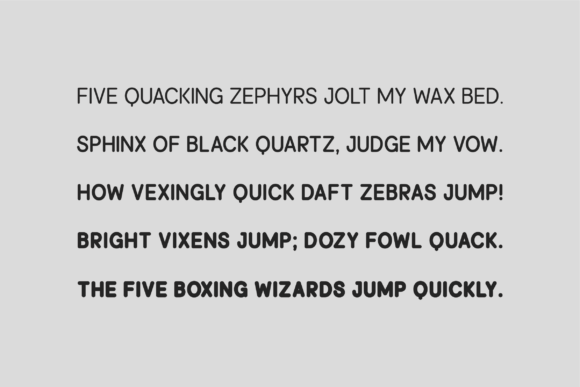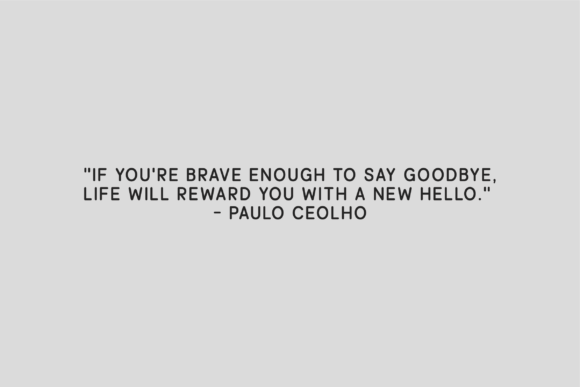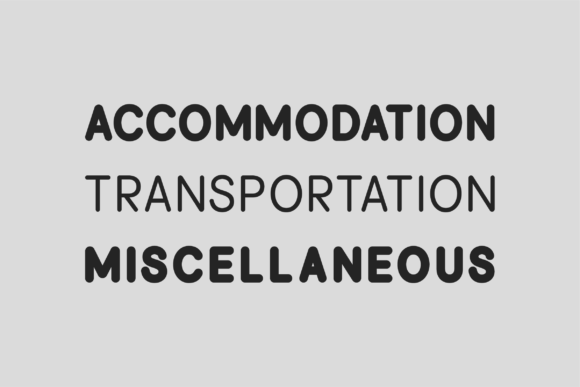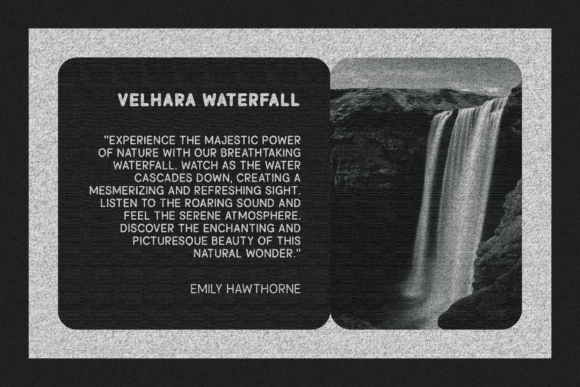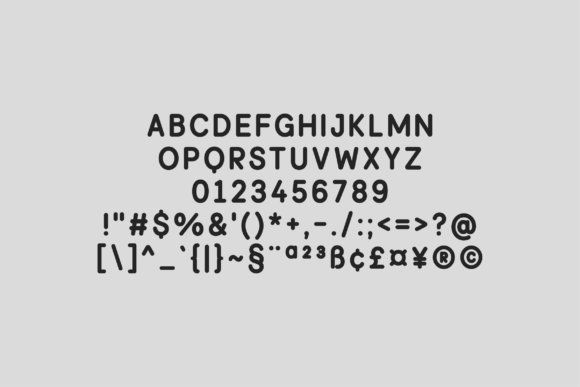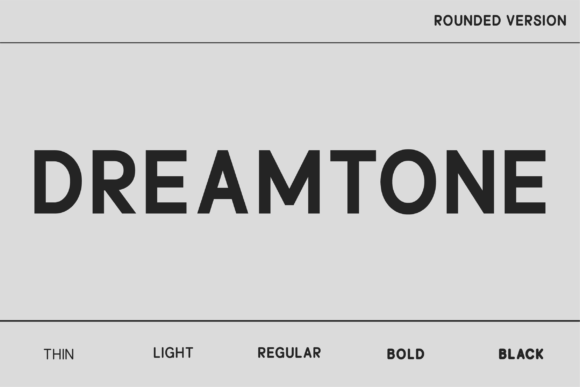
Dreamtone Rounded: The Ultimate Sans Serif Font for Timeless Designs
In the world of typography, a well-crafted font can make all the difference in elevating a design from ordinary to extraordinary. Introducing Dreamtone Rounded, an exquisite sans serif font that is poised to revolutionize the way you approach your design projects. With its perfect blend of sophistication and simplicity, Dreamtone Rounded is the ideal choice for designers and crafters seeking to add a touch of timeless charm to their creations.
The Art of Precision: Crafting Dreamtone Rounded
Dreamtone Rounded is the result of meticulous attention to detail and a passion for typographic excellence. Crafted with utmost precision, this stunning sans serif font boasts clean lines, subtle curves, and a distinctive rounded edge that sets it apart from other fonts in its category. Whether you’re working on a magazine, logo, or film poster, Dreamtone Rounded is designed to effortlessly enhance your project with its elegant and refined aesthetic.
Unleashing Creative Possibilities
One of the standout features of Dreamtone Rounded is its versatility. This exceptional font can be used across a wide range of design applications, from editorial and advertising to branding and packaging. Its neutral yet sophisticated style allows it to seamlessly integrate with various design elements, ensuring that your message is conveyed with clarity and impact. Whether you’re aiming to create a bold statement or a subtle impression, Dreamtone Rounded provides the perfect foundation for your creative vision.
The Perfect Balance: Sophistication and Simplicity
Dreamtone Rounded embodies the perfect balance of sophistication and simplicity, making it an invaluable asset for designers seeking to create timeless designs. The font’s sleek and modern aesthetic is balanced by its approachable and friendly rounded edges, resulting in a unique visual identity that is both refined and relatable. This delicate balance enables Dreamtone Rounded to convey complex messages with ease, making it an excellent choice for projects that require a high level of nuance and sophistication.
Enhance Your Designs with Timeless Charm
With Dreamtone Rounded, you can infuse your designs with a sense of timeless charm that transcends fleeting trends. This exceptional font is designed to stand the test of time, ensuring that your creations remain relevant and captivating for years to come. Whether you’re working on a high-end brand campaign or a personal project, Dreamtone Rounded provides the perfect foundation for creating designs that exude elegance, sophistication, and a deep understanding of typographic excellence.
Key Features of Dreamtone Rounded
- Exquisite sans serif font: Dreamtone Rounded boasts a clean and refined aesthetic that is perfect for a wide range of design applications.
- Precision-crafted: Every detail of this font has been meticulously crafted to ensure a high level of typographic excellence.
- Perfect balance of sophistication and simplicity: Dreamtone Rounded combines sleek lines and subtle curves with approachable rounded edges, resulting in a unique visual identity.
- Versatile and adaptable: This exceptional font can be used across various design applications, from editorial and advertising to branding and packaging.
- Timeless charm: Dreamtone Rounded is designed to stand the test of time, ensuring that your designs remain relevant and captivating for years to come.
In conclusion, Dreamtone Rounded is an exceptional sans serif font that is poised to revolutionize the way you approach your design projects. With its perfect blend of sophistication and simplicity, this exquisite font provides the ideal foundation for creating timeless designs that exude elegance and refinement. Whether you’re a designer, crafter, or simply someone who appreciates the art of typography, Dreamtone Rounded is an invaluable asset that is sure to elevate your creative vision to new heights.